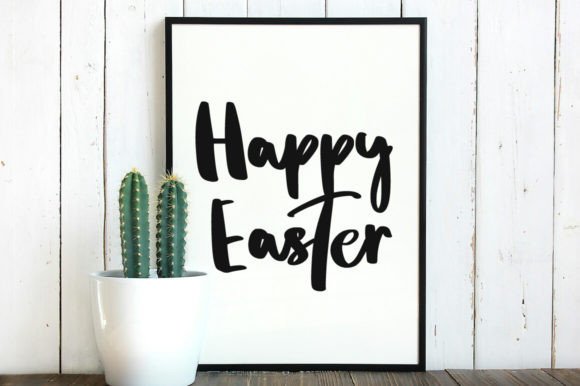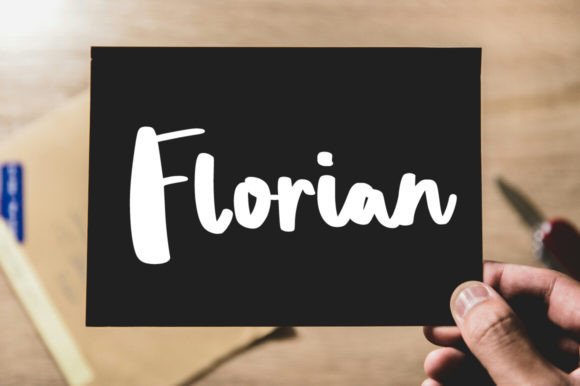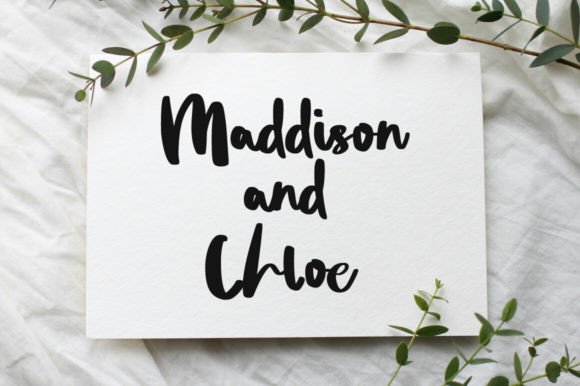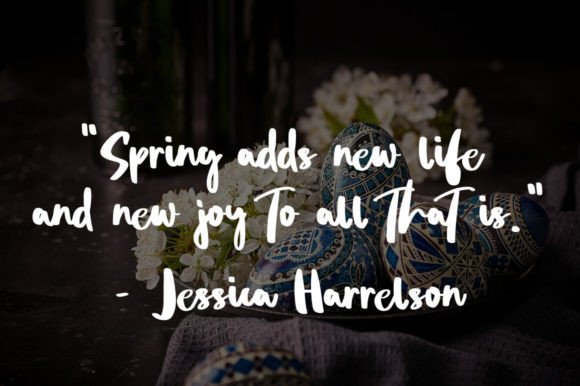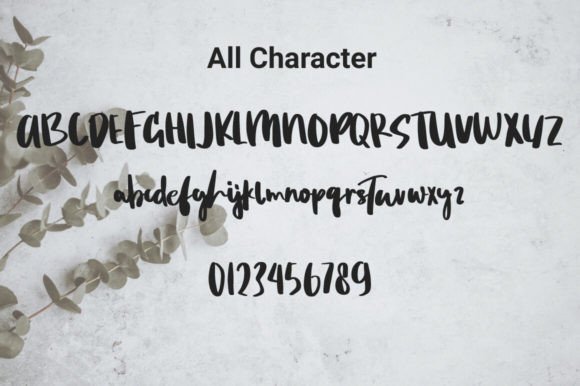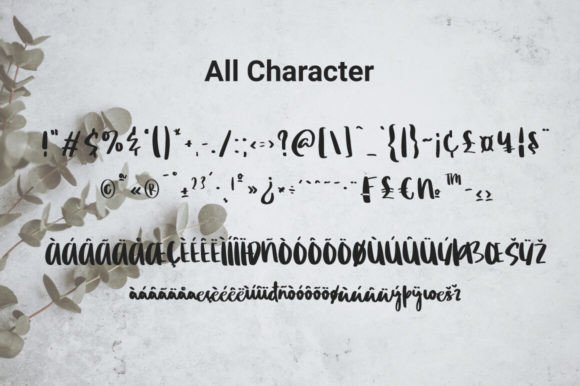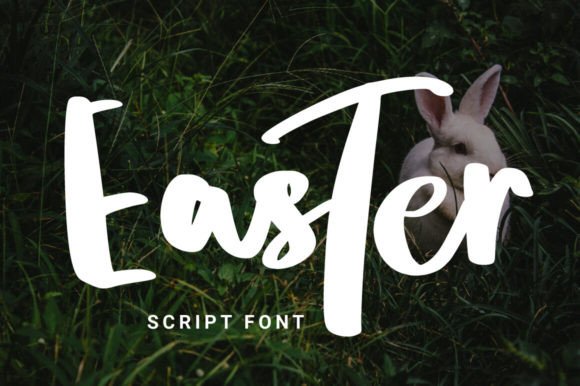
Easter Font: Add a Sweet and Friendly Touch to Your Designs
Easter is a time for joy, celebration, and creativity. As a designer or crafter, you’re likely always on the lookout for unique and festive fonts to add a personal touch to your projects. That’s where the Easter Font comes in – a sweet and friendly handwritten script font that’s perfect for capturing the spirit of the season.
What is Easter Font?
Easter Font is a beautiful, handmade script font that’s designed to evoke the warmth and charm of handwritten Easter greetings. Its gentle, flowing letterforms are carefully crafted to exude a sense of joy and celebration, making it an ideal choice for projects that require a heartfelt and festive touch.
Key Features of Easter Font
- Handwritten script font: Easter Font is a true handwritten script font, with each letterform carefully crafted to mimic the natural flow and imperfections of handwriting.
- Sweet and friendly: The font’s gentle, flowing letterforms give it a warm and inviting charm that’s perfect for Easter-themed projects.
- Festive and celebratory: Easter Font is designed to add a touch of celebration and joy to your designs, making it perfect for Easter cards, invitations, and other festive projects.
- Easy to read: Despite its handwritten nature, Easter Font is surprisingly easy to read, making it a great choice for projects that require a personal touch without sacrificing legibility.
Uses for Easter Font
Easter Font is a versatile font that can be used in a wide range of projects, from Easter cards and invitations to DIY crafts and digital designs. Here are just a few ideas to get you started:
- Easter cards and invitations: Add a personal touch to your Easter greetings with Easter Font’s sweet and friendly letterforms.
- DIY crafts: Use Easter Font to add a festive touch to your Easter-themed crafts, such as Easter egg decorations, garlands, and more.
- Digital designs: Easter Font is perfect for digital designers who want to add a personal touch to their Easter-themed designs, such as social media graphics, blog posts, and more.
- Spring-themed projects: Easter Font’s sweet and friendly letterforms make it a great choice for any spring-themed project, from Mother’s Day cards to summer-themed designs.
Tips for Using Easter Font
Here are a few tips for getting the most out of Easter Font:
- Use it with pastel colors: Easter Font looks beautiful paired with soft pastel colors, such as pink, blue, and yellow.
- Add some flourishes: Easter Font’s gentle letterforms are perfect for adding flourishes and swashes to give your designs a more decorative feel.
- Experiment with font sizes: Easter Font looks great in a variety of font sizes, from large and bold to small and delicate.
- Pair it with other fonts: Easter Font pairs beautifully with other script fonts, as well as bold and modern fonts for a fun and playful contrast.
Easter Font is a sweet and friendly handwritten script font that’s perfect for adding a personal touch to your Easter-themed designs. With its gentle, flowing letterforms and festive charm, it’s an ideal choice for designers and crafters who want to create unique and celebratory projects. Whether you’re designing Easter cards, invitations, or DIY crafts, Easter Font is sure to bring a touch of joy and warmth to your creations.